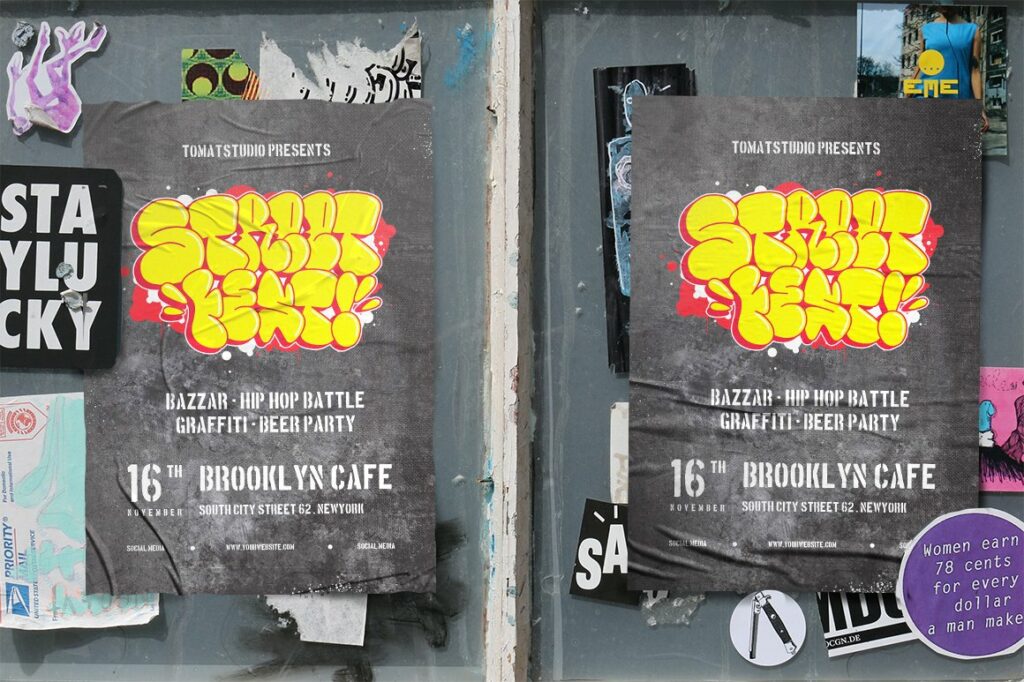
Throws Graffiti Font . The designer (who has a background in graffiti) took inspiration from graffiti culture, particularly “bombs” and “flops”, a subtype of graffiti that can be created quickly and is known for its simple shapes. looking for graffiti throw up fonts? Every font is free to download! Trusted by millions + easy to use font files + full support. throws contains 2 styles and family package options. download graffiti fonts | throws (1458336) instantly now! download the latest version of the throw up font graffiti font family here. Get exclusive, upgraded & expanded versions of the best,. Click to find the best 9 free fonts in the graffiti throw up style. download free throwup graffiti fonts. No hassle, no fuss, find thousands of high quality free fonts on fontsc. 287,141 downloads (39 yesterday) 19 comments 100% free.